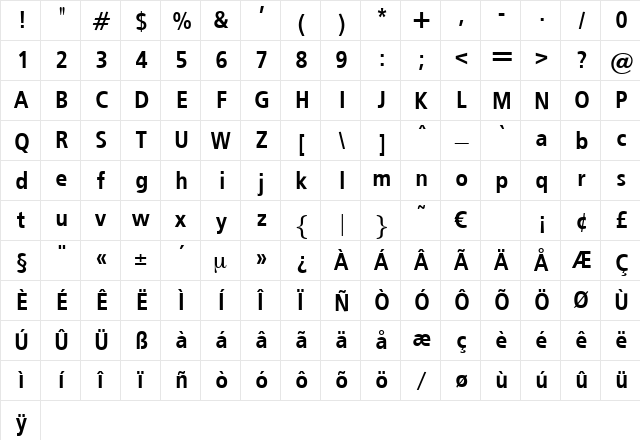
CarlosNoeight Regular
CarlosNoeight takes a measured approach to typography — its balanced proportions and neutral character make it a reliable workhorse for both digital and print work.